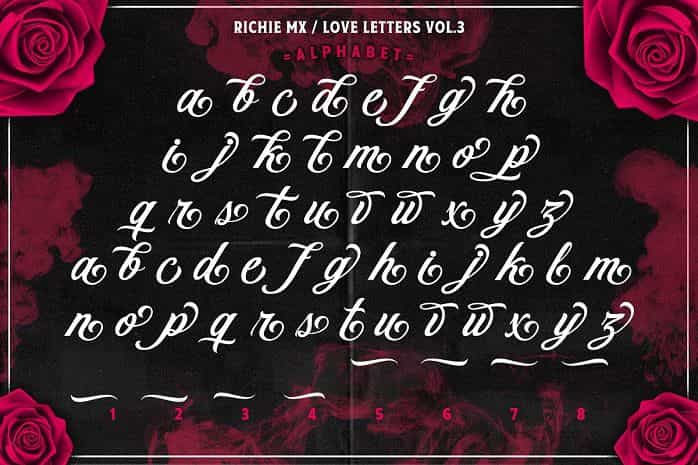
This font is a handwritten calligraphy script with an easy style and smooth flow. This font will be perfect for your next creative project. Love Letters Font – is a calligraphy script font that was made and shared by Richie Mx. Love Letters Script Font is a typeface based on the Script Lettering style in the design studio “Riders on the Storm Design”.